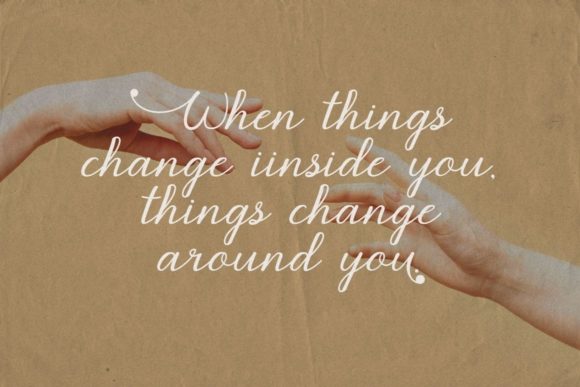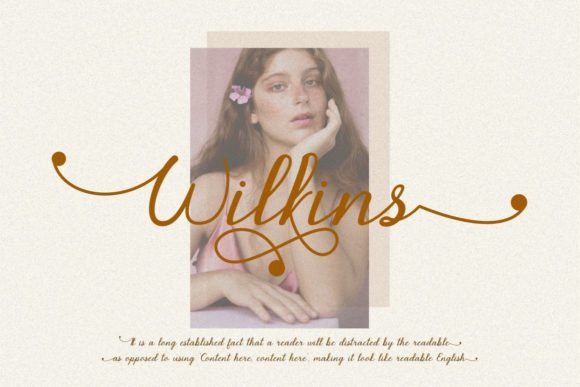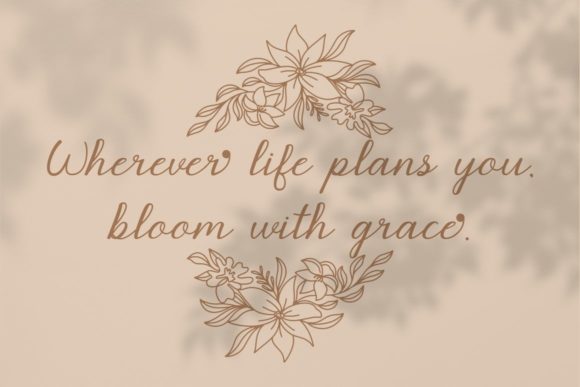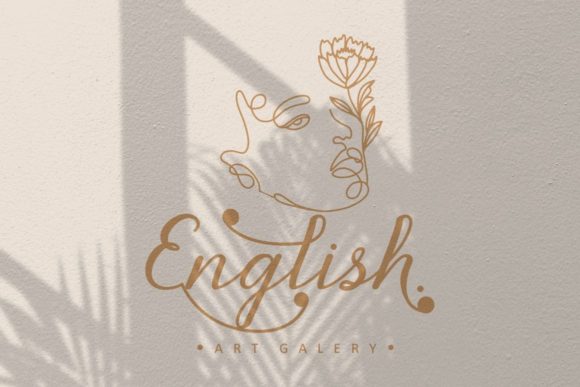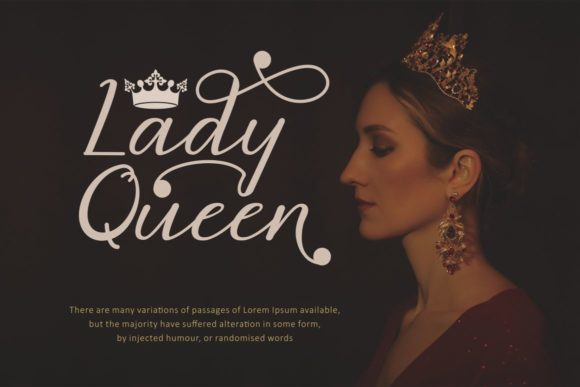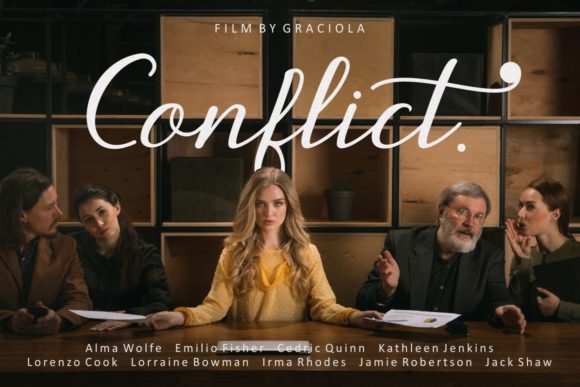
The Elusive Font: A Designer’s Quest for the Perfect Script
I still remember the frustration of working on a client project, searching for the perfect script font to bring their brand to life. Hours spent scrolling through font libraries, only to come up empty-handed. That’s when I stumbled upon Graciola Font, a stylish and beautiful script font that exceeded my expectations. In this article, I’ll share my experience with Graciola, its features, and how to make the most of this stunning font.
First Impressions: What I Love About Graciola Font
Graciola Font is a PUA-encoded script font, which means accessing glyphs and swashes is a breeze. Here are some of the things I love about Graciola:
- ✨ Elegant and flowing script style, perfect for creative projects
- 💫 Highly legible, even at smaller font sizes
- 🎨 Versatile and adaptable to various design contexts
The Not-So-Perfect: Small Quirks and Limitations
No font is perfect, and Graciola is no exception. Here are some minor quirks to keep in mind:
- 🤔 Limited character set compared to some other script fonts
- ⚠️ May not be suitable for very large or very small font sizes
The Story Behind Graciola: Designer Inspiration
While the true story behind Graciola’s creation may be unknown, it’s easy to imagine a designer inspired by the flowing scripts of the past, with a passion for creating elegant and versatile fonts. Perhaps the designer wanted to create a font that would bring a touch of sophistication to any design project.
| Font Name | Graciola Font |
| Author | putracetol |
| Q: What is PUA encoding, and how does it benefit Graciola Font? | A: PUA (Private Use Area) encoding allows for easy access to glyphs and swashes, making it simpler to use the font’s advanced features. |
| Q: Is Graciola Font suitable for body text? | A: While Graciola is a beautiful font, it’s primarily designed for display text. For body text, you may want to choose a font with better legibility at smaller sizes. |